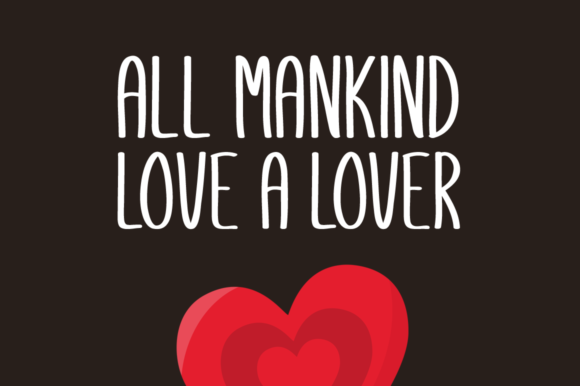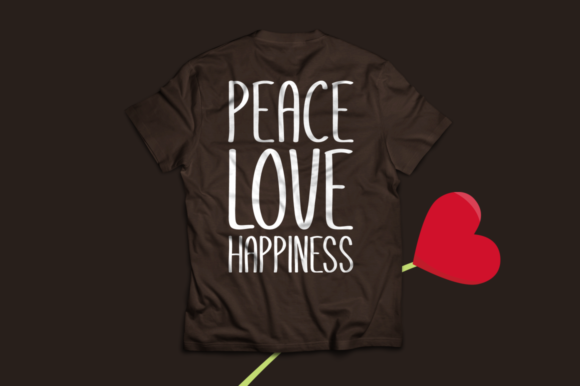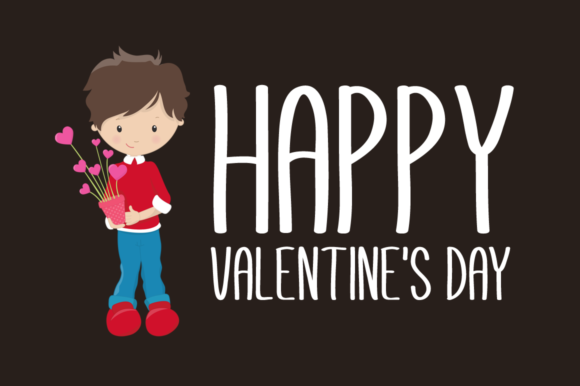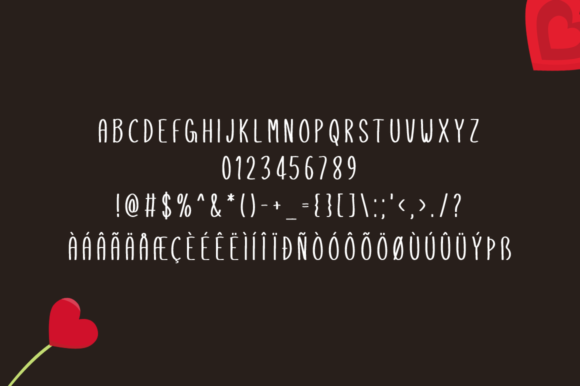
Introduction to Lover Vision Font Font
Fonts play a crucial role in design, and the Lover Vision Font font is a typeface that brings both character and versatility to any project. Whether you’re working on a branding project, a website, or a print design, the Lover Vision Font font offers a unique style that can elevate your work.
Lover Vision is a brand new handwritten font.
Lover Vision is perfectly suited for stationery, logos, t-shirt, paper, print design, website header, photo frame, flyer, music cover, poster, image slider and much more .
Key Features of Lover Vision Font Font
Why Choose Lover Vision Font Font?
The Lover Vision Font font is more than just a typeface – it’s a design tool that helps you communicate your message with style and clarity. Its unique character set and versatile design make it suitable for a wide range of applications, from elegant invitations to bold headlines.
With its carefully crafted letterforms and balanced proportions, the Lover Vision Font font ensures readability and visual appeal across all mediums.
What makes Lover Vision Font font special?
The Lover Vision Font font stands out with its unique design, exceptional readability, and versatility across various design applications.